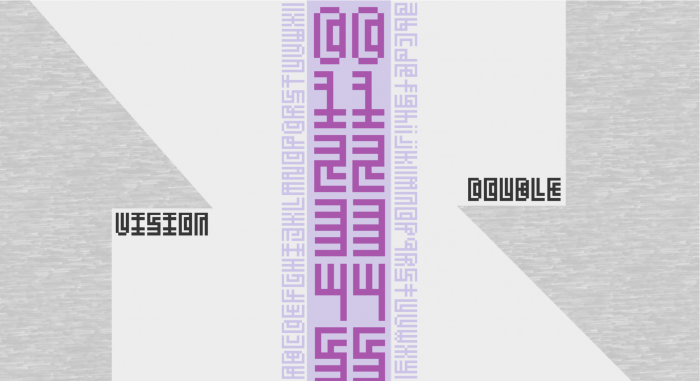
Looks great.
A great concept that works really well.
goofy little sample
Very good. Reminds me a lot of one of my very old projects, but yours is much more readable